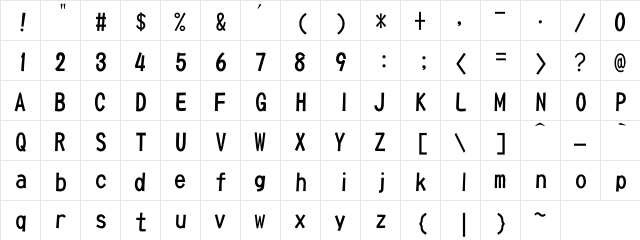
DFPOP1W5U-B5 Regular Font Preview
DFPOP1W5U-B5 Regular
Design Context for DFPOP1W5U-B5 Typeface
DFPOP1W5U-B5 is a composed and adaptable typeface that performs quietly and consistently across a wide range of design contexts.